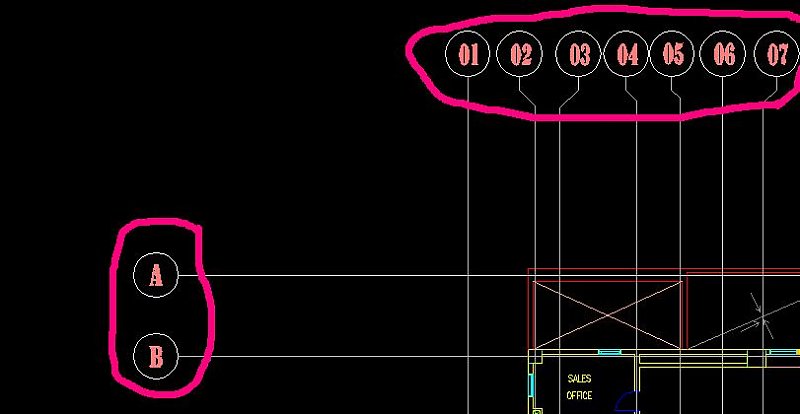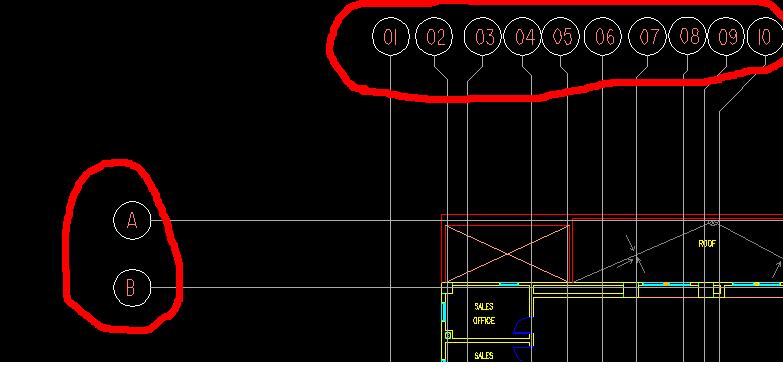
e.mounir Posted December 21, 2008 Hi all, We have a project and the arch. Come out side the company and the drawing have a font STENCIL.shx it looking good for each machine except one And I don’t know the reason may be variable or the graphic card …etc Note this problem in AutoCAD 2008 and 2009 The attached may be explain more than me Have any one help me in this problem Thanks Quote
profcad Posted December 21, 2008 Verify that STENCIL.shx is loaded on each computer. Quote
ReMark Posted December 21, 2008 On each computer, in AutoCAD, what is the "path" to the fonts being used? On each computer, in the Text Style dialog box, what does it say for each of the following? Style Name Font Name And is the box Use Big Font checked off? Yes/No. Using Windows Explorer tell us, for Stencil.shx, what is the file Size and Date Modified on each computer. Quote
ReMark Posted December 21, 2008 Notice that the top font image is sans serif. The bottom font image is serif. They cannot be the same font. Quote
Andrew1979 Posted December 24, 2008 It seems AutoCAD isn't looking in the right place for this file. Make sure the .shx file is in the AutoCAD support path and the fonts folder contains is pointing in the right location. Quote